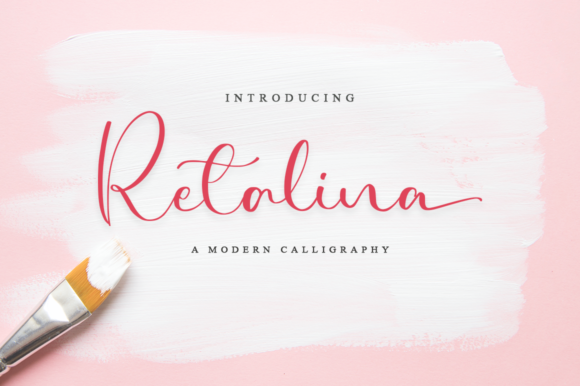
Introducing Retalina, the enchanting script font that will captivate your designs with its timeless elegance. Immerse yourself in the world of Retalina, where every stroke whispers a tale of love and allure.
Indulge in the beauty of this meticulously crafted font that seamlessly blends the charm of handwritten artistry with the precision of digital design. Retalina's delicate curves and graceful flourishes evoke a sense of ethereal whimsy, making it the perfect choice for adding a touch of magic to your wedding invitations, branding, and all your creative endeavors.
Retalina's versatility knows no bounds. Whether you're seeking to create a breathtaking wedding invitation that reflects the joy and romance of your special day or desire to elevate your branding with a sophisticated and memorable touch, Retalina will effortlessly rise to the occasion.
With Retalina, the possibilities are endless. Unleash your creativity and let this enchanting script guide you on a journey of self-expression and artistic fulfillment. Embrace the power of Retalina and watch as your designs blossom into works of art that leave a lasting impression.